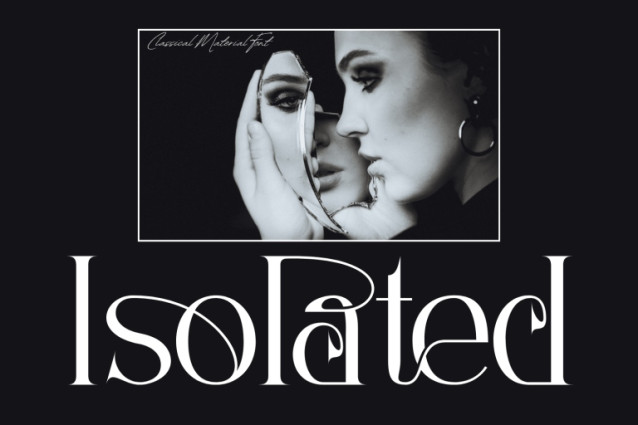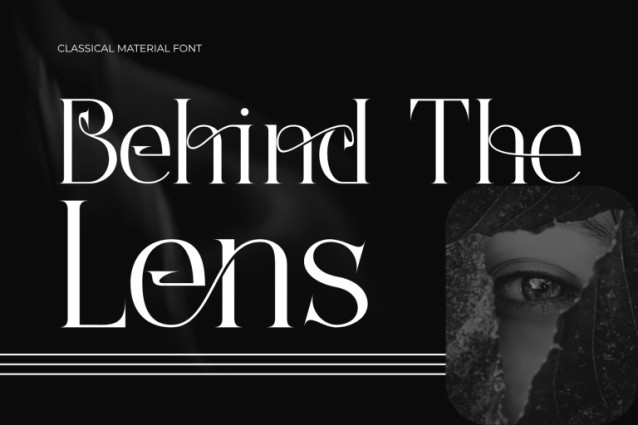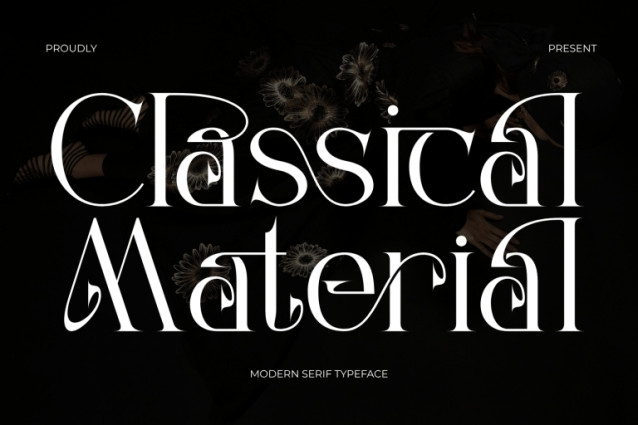
Classical Material – Calligraphic Serif Font – Modern Botanical Calligraphic Serif & Ornamental Display Font is an elegant decorative display serif that brings classical sophistication together with expressive contemporary details. Built around dramatic high contrast, refined proportions, and delicate hairlines, the typeface is distinguished by its sculptural curves, ornamental terminals, and beautifully curled details that give each letter a distinctive personality.
Inspired by the timeless elegance of classical serif typography and the graceful movement of calligraphic forms, Classical Material introduces a more artistic approach through sweeping curves, teardrop-shaped details, sharp transitions, and unexpected decorative gestures. Its bold vertical strokes provide a strong visual foundation, while the finer lines and intricate terminals add delicacy, rhythm, and sophistication. The result is a typeface that feels luxurious and timeless while remaining expressive and contemporary.